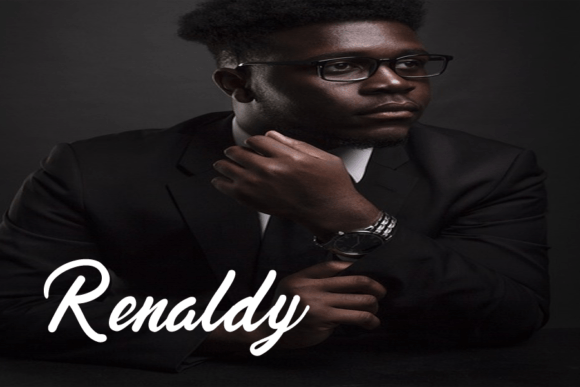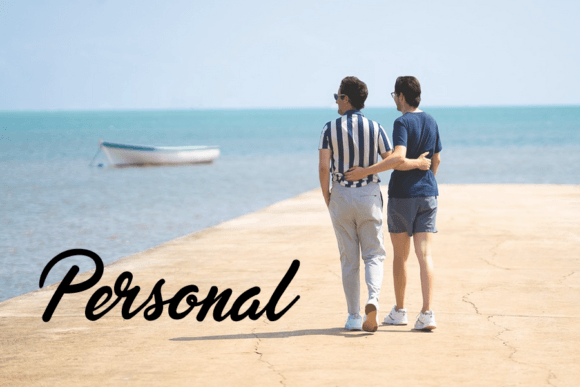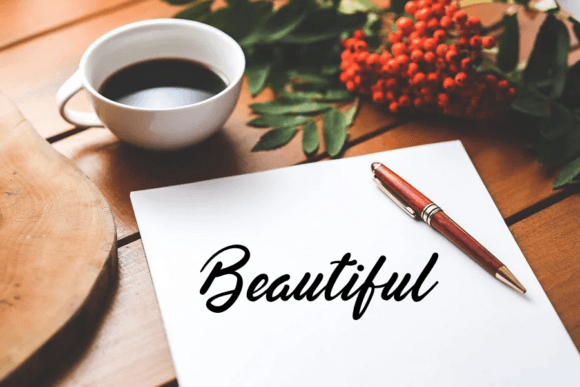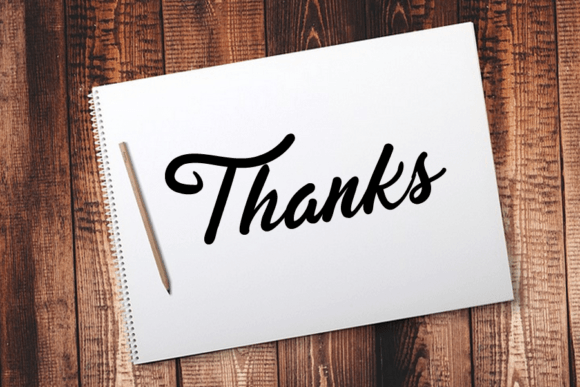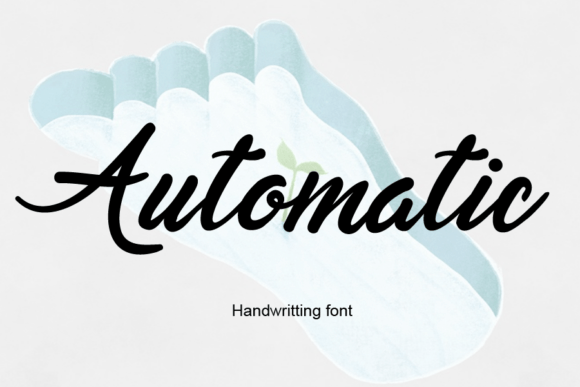
Introducing Automatic: The Elegant Calligraphic Font for Stunning Designs
Are you tired of using the same old fonts for your design projects? Look no further than Automatic, a beautiful and modern calligraphic font that’s sure to elevate your creations. With its graceful strokes and rhythmic flow, Automatic is the perfect choice for designers and crafters looking to add a touch of elegance and sophistication to their work.
The Beauty of Automatic
Automatic is a masterpiece of calligraphic design, with each letter carefully crafted to create a sense of fluid motion and harmony. The font’s beautiful rhythm makes it a joy to use, and its modern feel ensures that your designs will look fresh and contemporary. Whether you’re working on a branding project, creating invitations, or designing web graphics, Automatic is the perfect choice.
Endless Possibilities
One of the best things about Automatic is its versatility. This font can be used for a wide range of design projects, including:
- Branding projects: Create stunning logos, business cards, and letterheads that showcase your brand’s personality and style.
- Invitations: Make your guests feel special with beautifully designed invitations that set the tone for your event.
- Web graphics: Add a touch of elegance to your website with Automatic’s stylish and modern font.
- Cards: Create gorgeous greeting cards, postcards, and stationery that will make your loved ones feel special.
- And many more!: The possibilities are endless with Automatic. Use it for social media graphics, presentations, and any other design project that needs a touch of sophistication.
Why Choose Automatic?
So why choose Automatic over other fonts? Here are just a few reasons:
- Unique and elegant design: Automatic’s calligraphic style sets it apart from other fonts, making it perfect for designers who want to create something truly special.
- Easy to read: Despite its elegant design, Automatic is still easy to read, making it perfect for body text and other applications where legibility is important.
- High-quality design: Automatic is designed to the highest standards, ensuring that your designs will look professional and polished.
Tips for Using Automatic
Here are a few tips for getting the most out of Automatic:
- Use it with contrasting colors: Automatic looks stunning when paired with contrasting colors. Try pairing it with bold colors or subtle pastels to create a unique look.
- Experiment with different sizes: Automatic looks great in a variety of sizes, from large headings to smaller body text. Experiment with different sizes to find the perfect fit for your design.
- Pair it with other fonts: Automatic can be paired with other fonts to create a unique and interesting look. Try pairing it with a bold sans-serif font for a striking contrast.